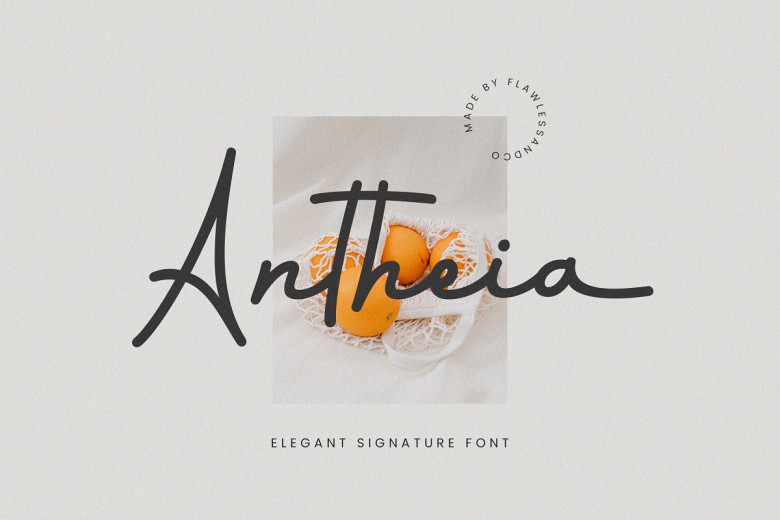
Antheia Font
Antheia Font is an elegant font designed to be signatured. Find your signature style by using “Antheia,” an exquisite signature font with beautiful letters that express individual style and grace. “Antheia” will add timeless beauty to your creations with its smooth lines and stylish letters that capture individualism while remaining elegantly simple.
Antheia Signature Script Font